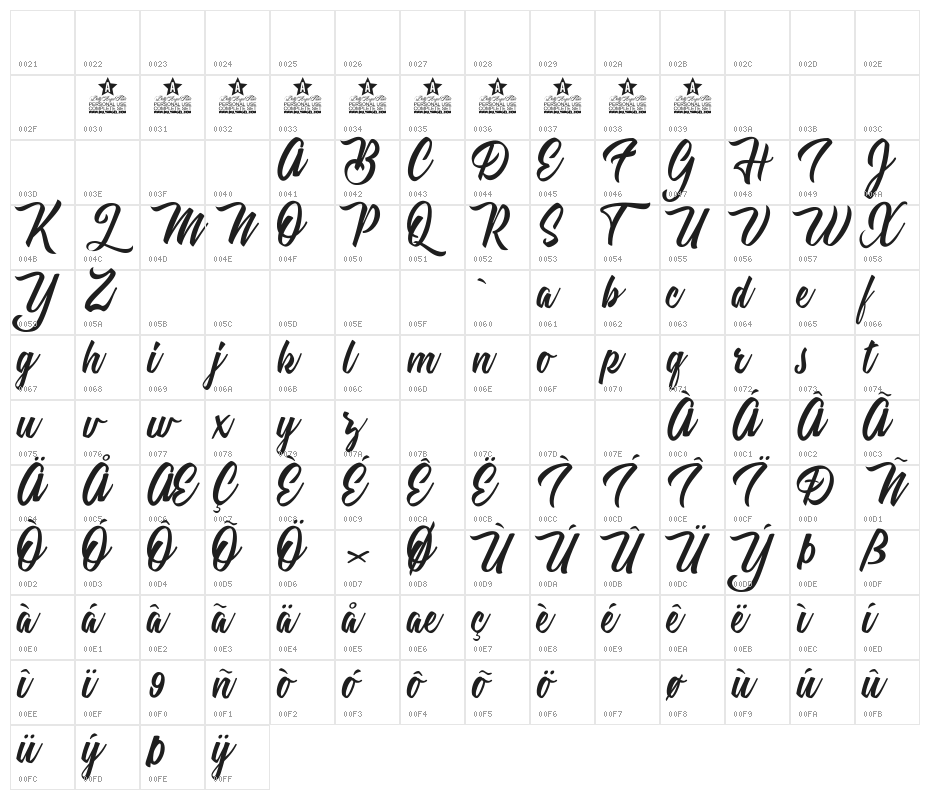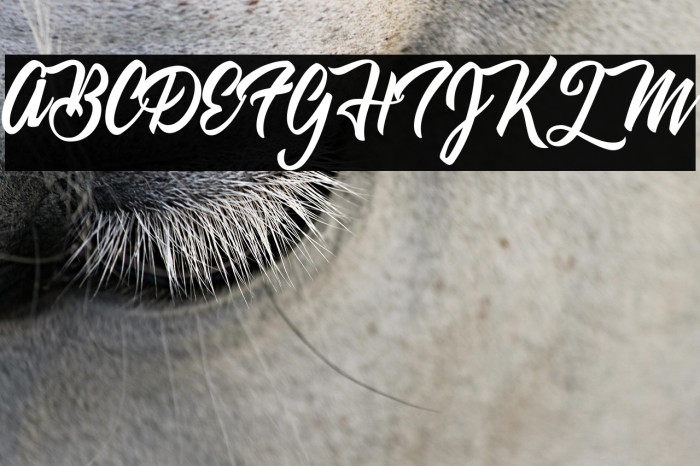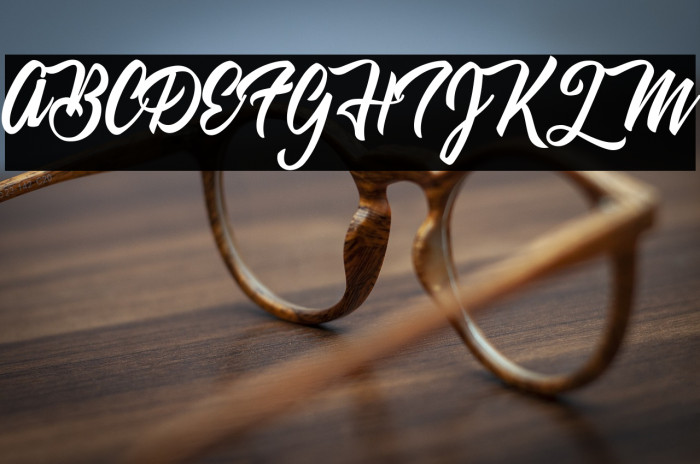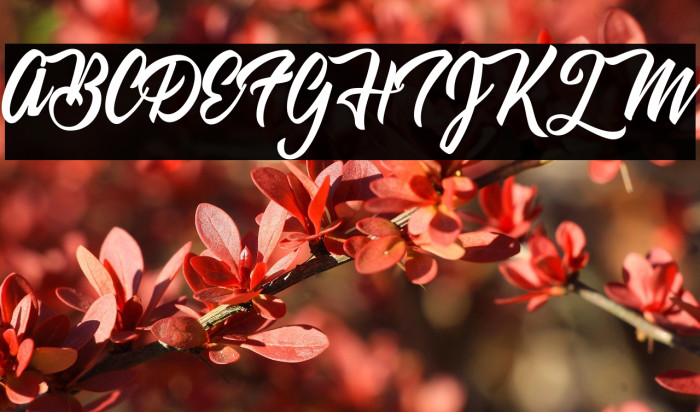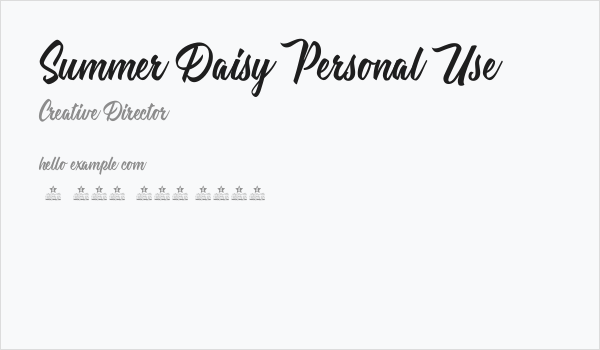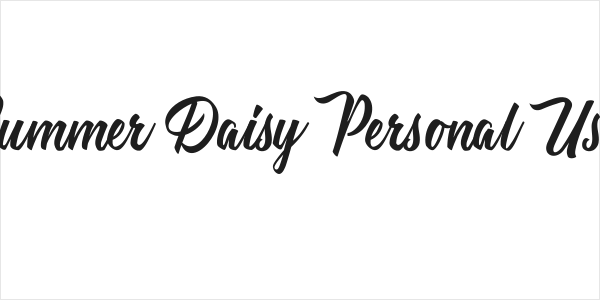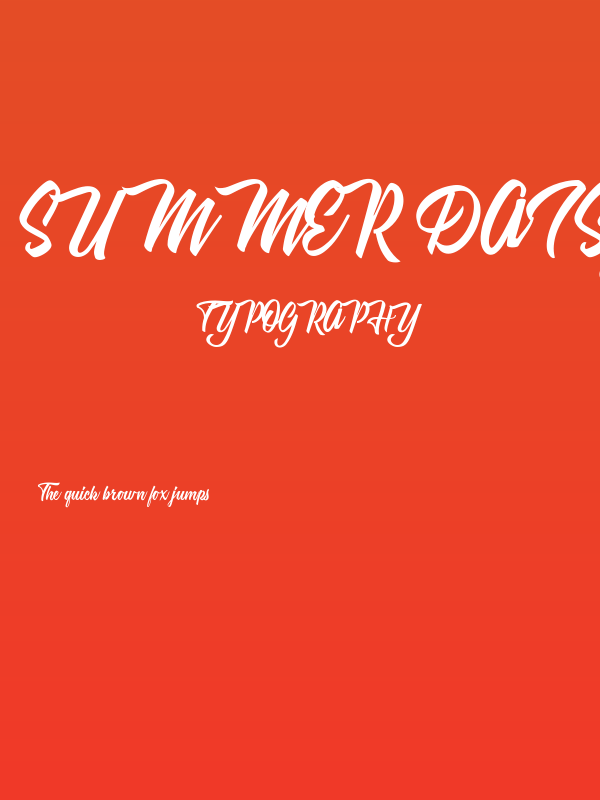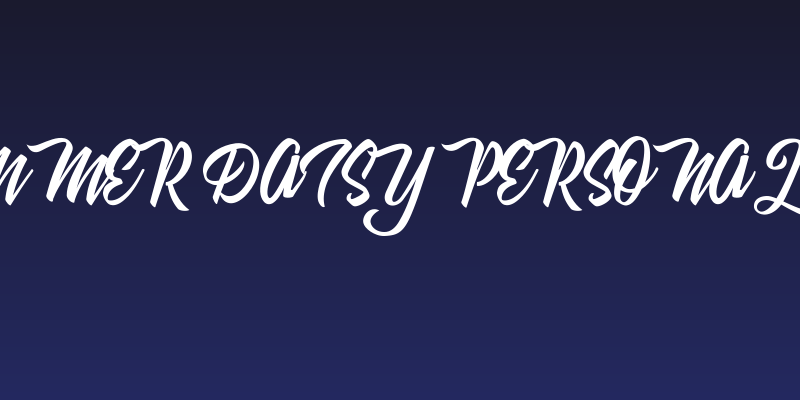
Summer Daisy Personal Use Font
Summer Daisy Personal Use Description
This font features a bold and expressive script style, characterized by its flowing, cursive letterforms. The uppercase letters are particularly striking, with dramatic loops and swashes that give the font a sense of movement and elegance. The lowercase letters maintain a consistent style, with smooth connections between each character, enhancing the font's fluidity. The numbers and special characters are designed to match the overall aesthetic, ensuring a cohesive look across all text. This font's bold weight and dynamic style make it ideal for creating eye-catching designs.